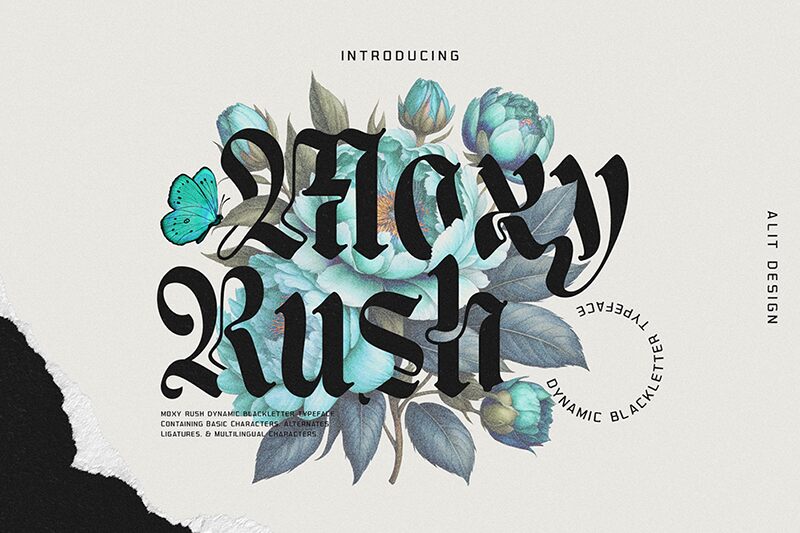
Moxy Rush font by Alit Design is an captivating gothic font that flourishes with ornate and elaborate characters. Inspired by a timeless sense of history, this free font features a medieval aesthetic that is great to capture attention and bring a dramatic presence to your designs.
Use Moxy Rush font for t-shirt print, posters, stickers, book covers or themed magazines. For digital designs, it can be applied to video game user interfaces or packsagin or relevant mobile apps. Ultimately, the choice is yours!